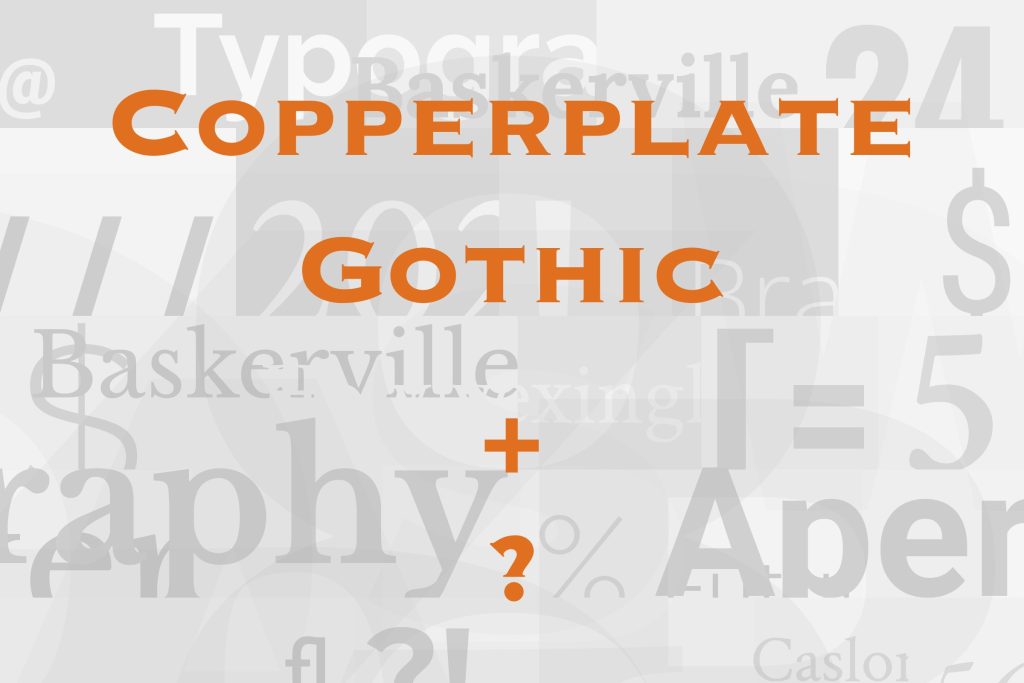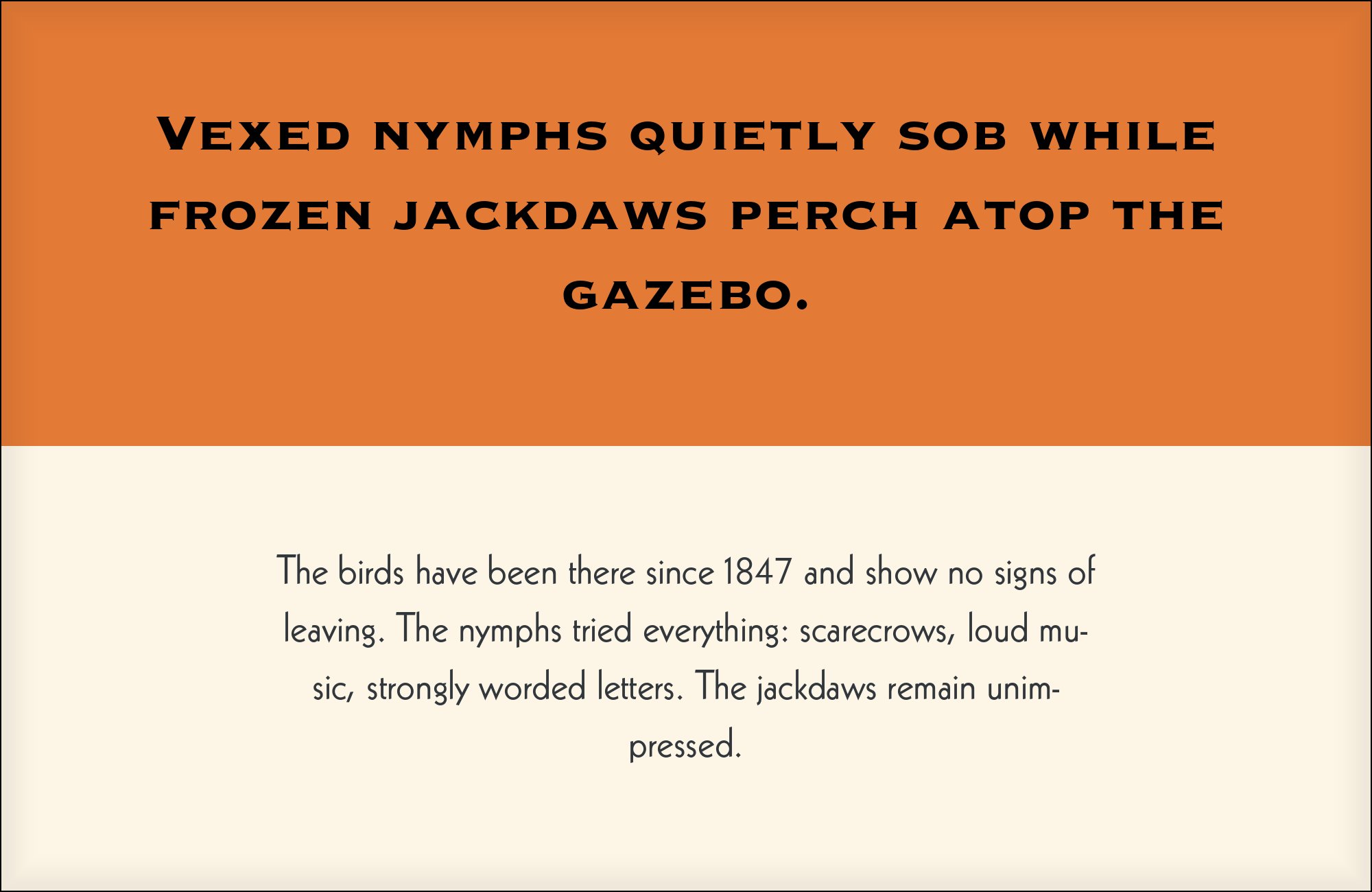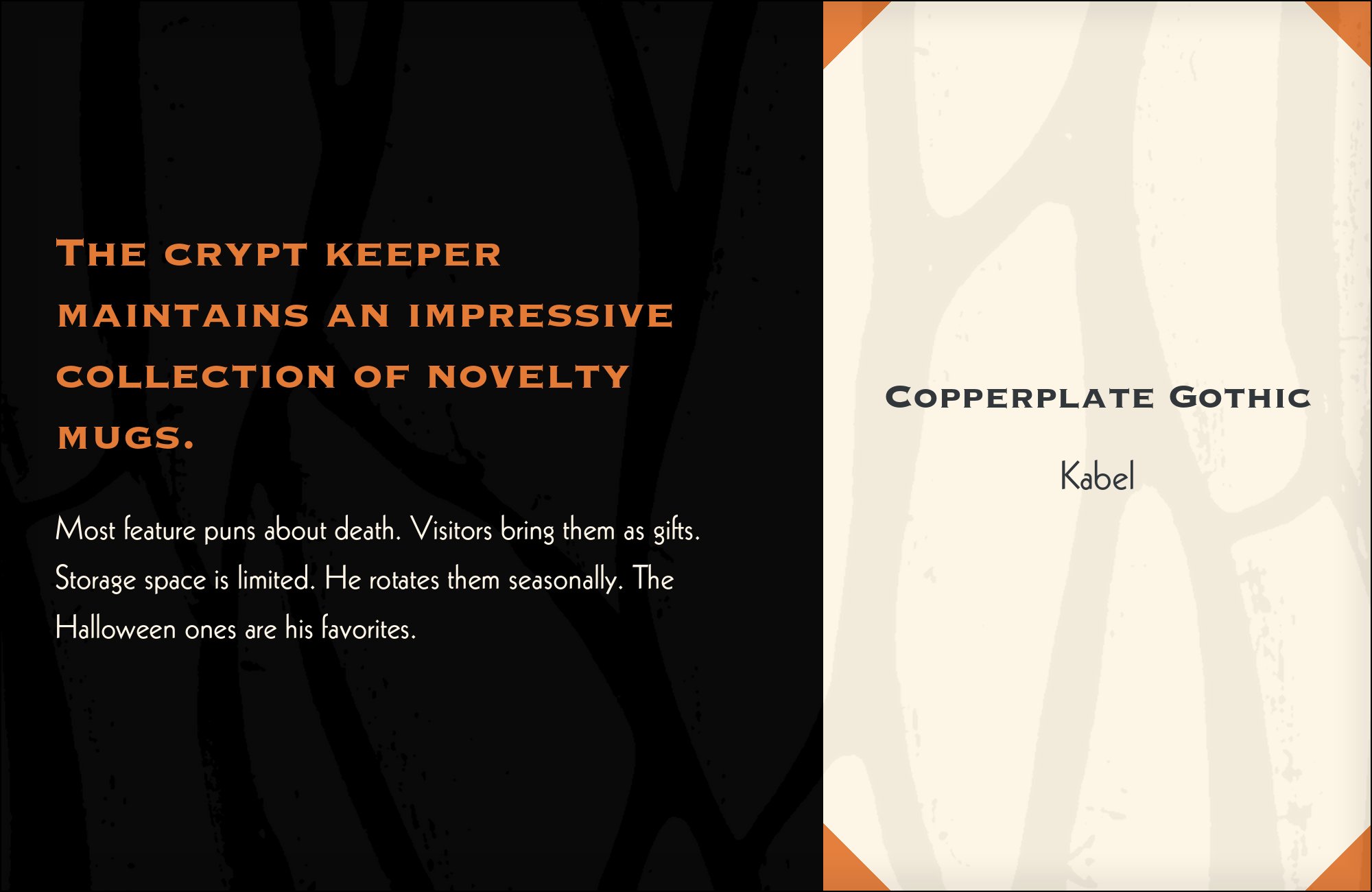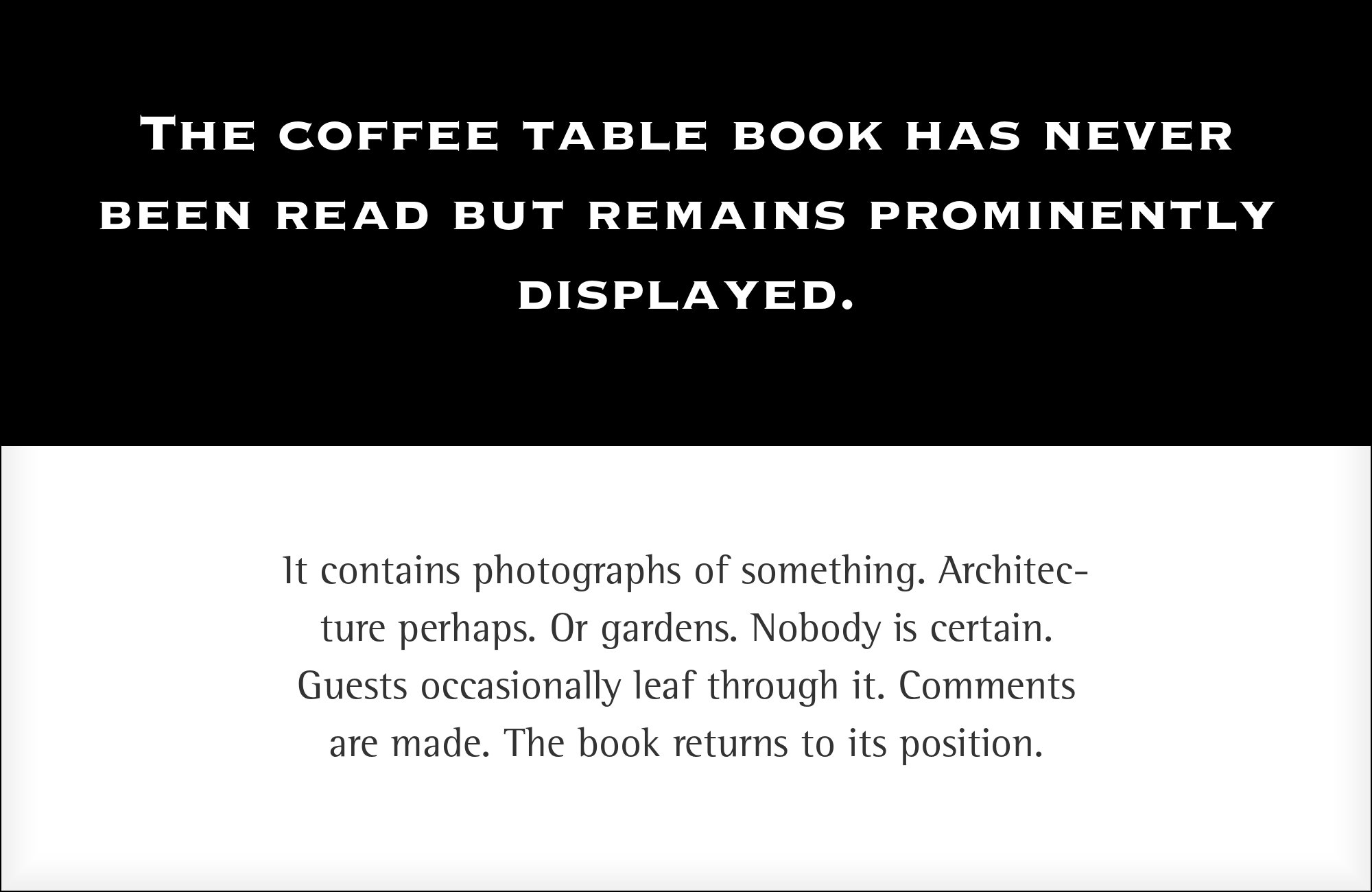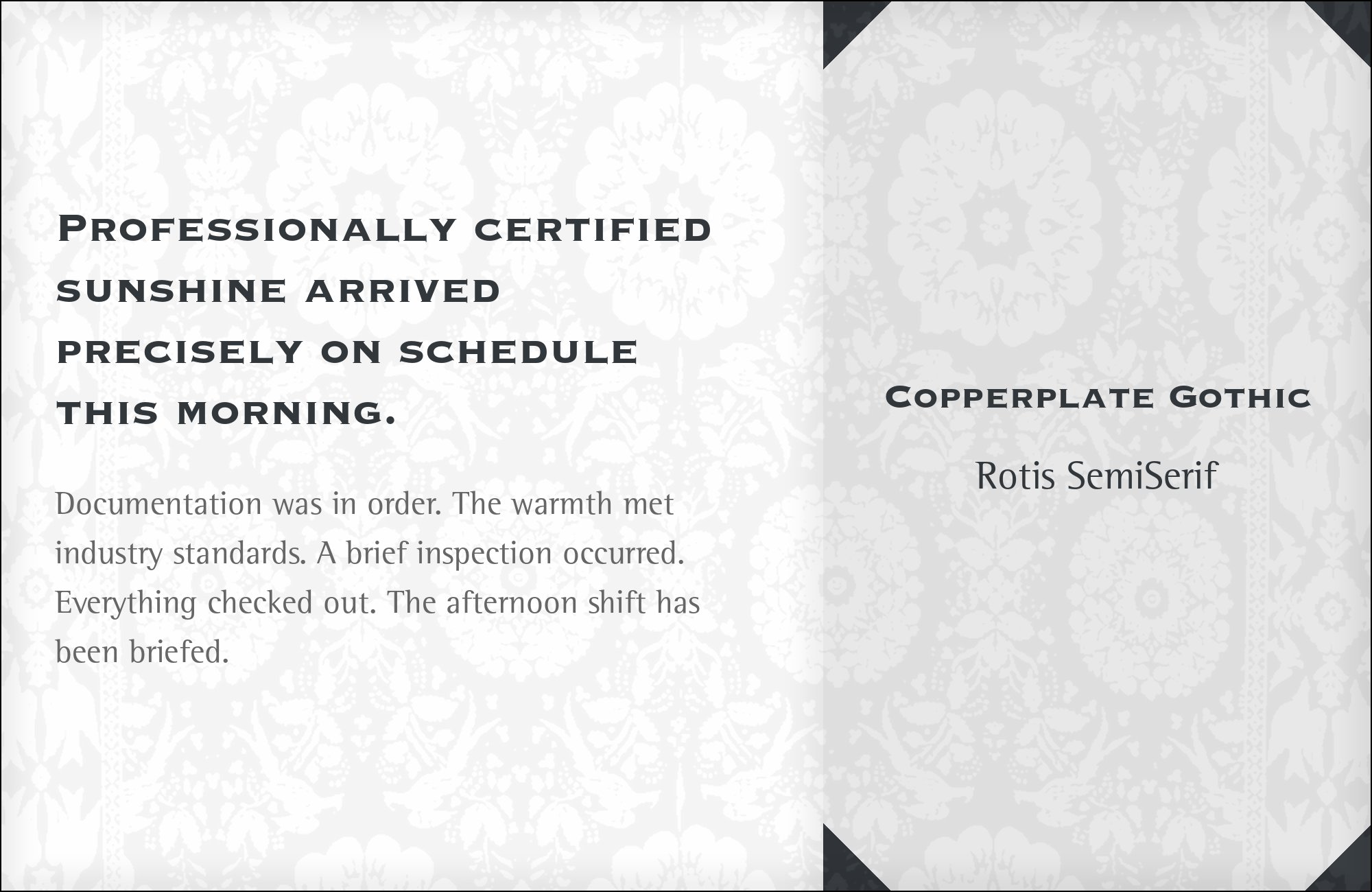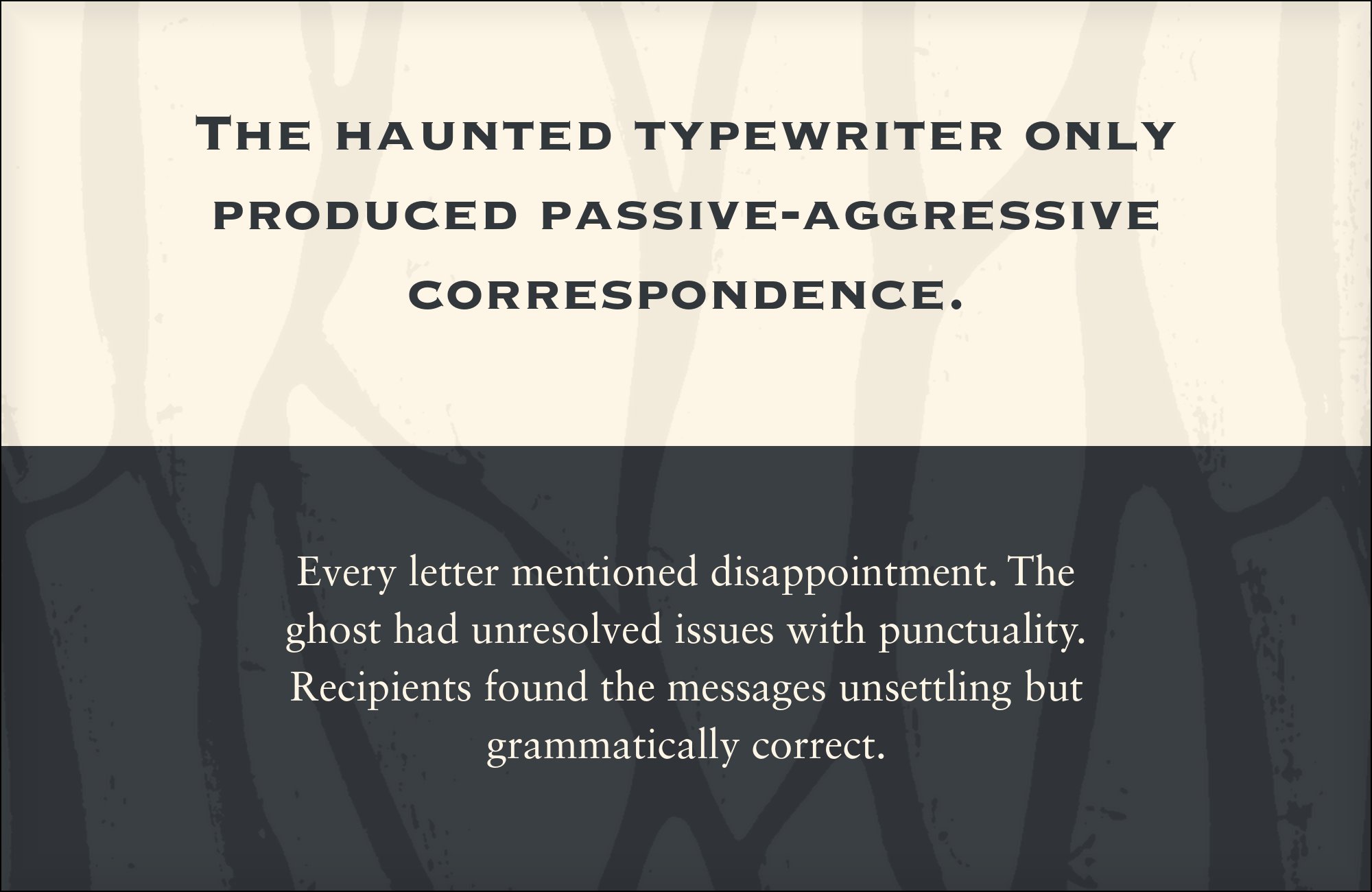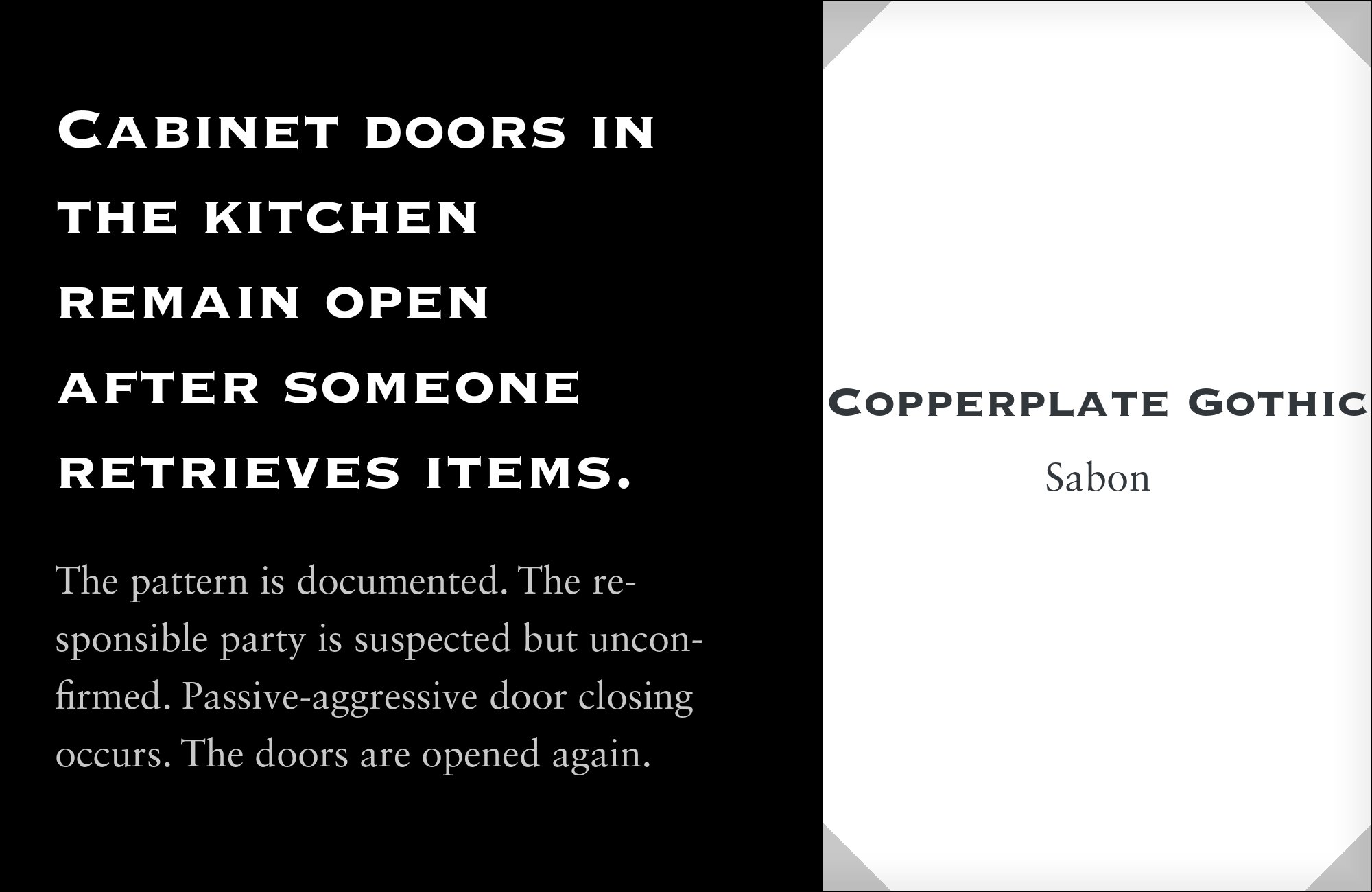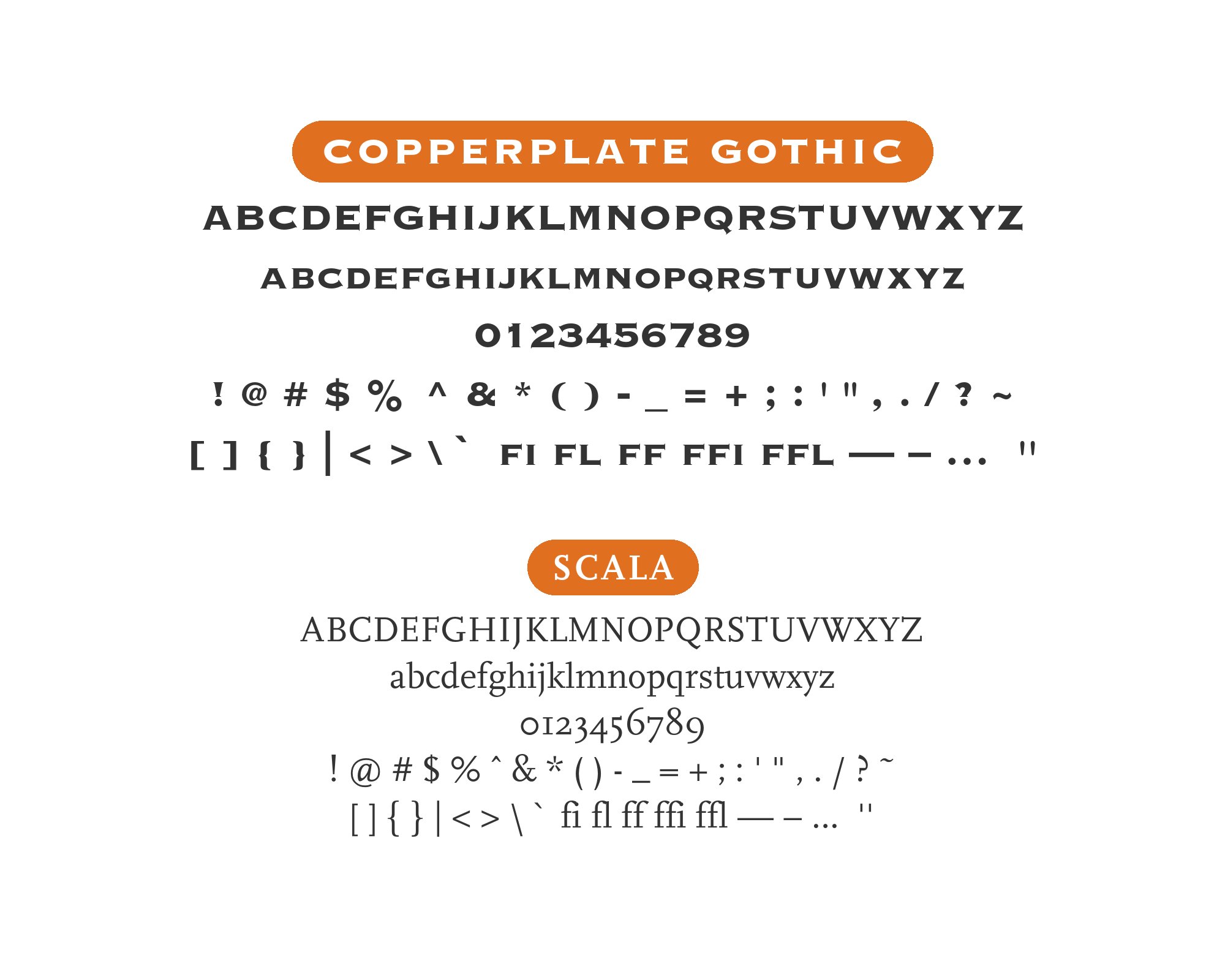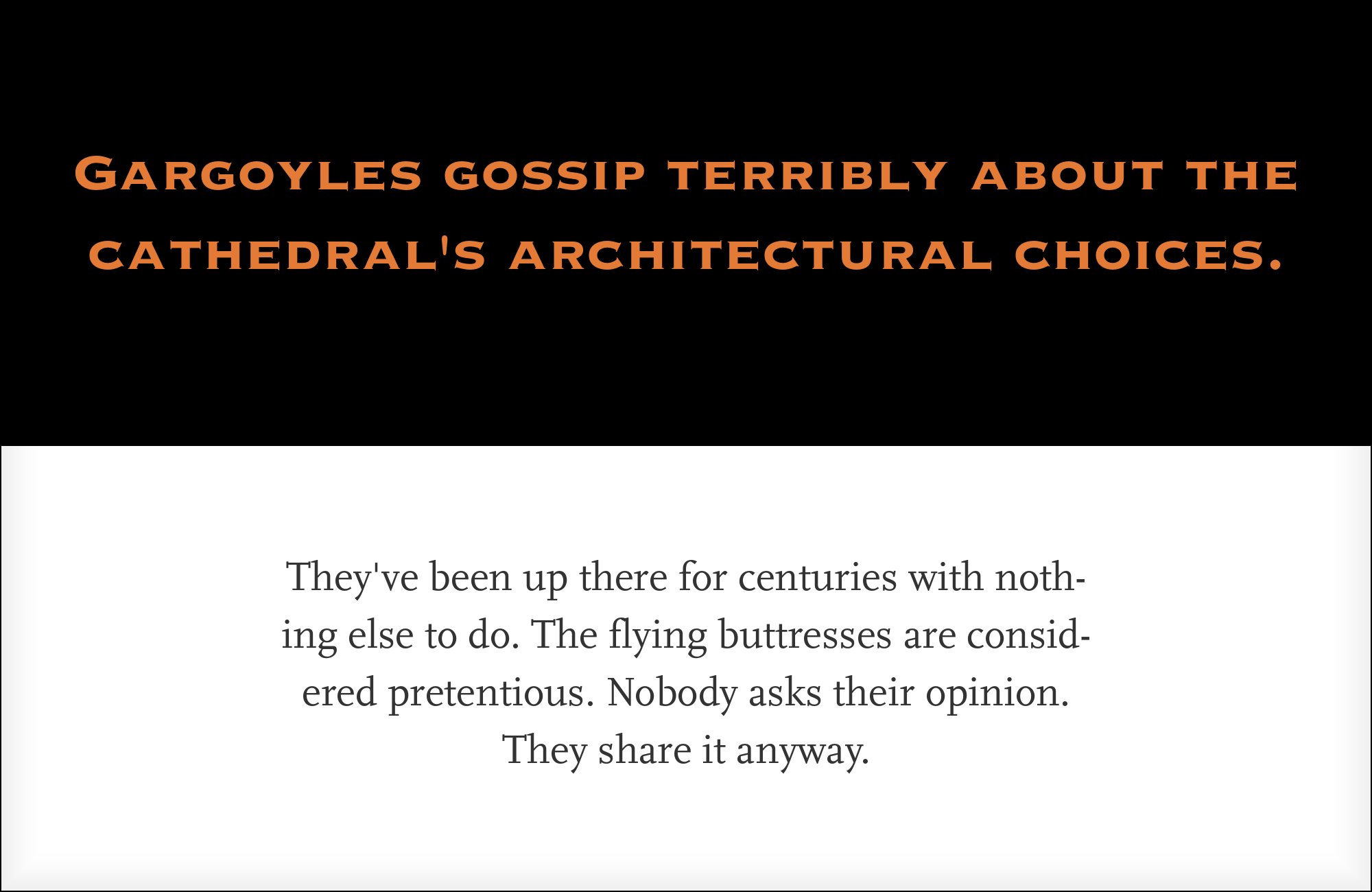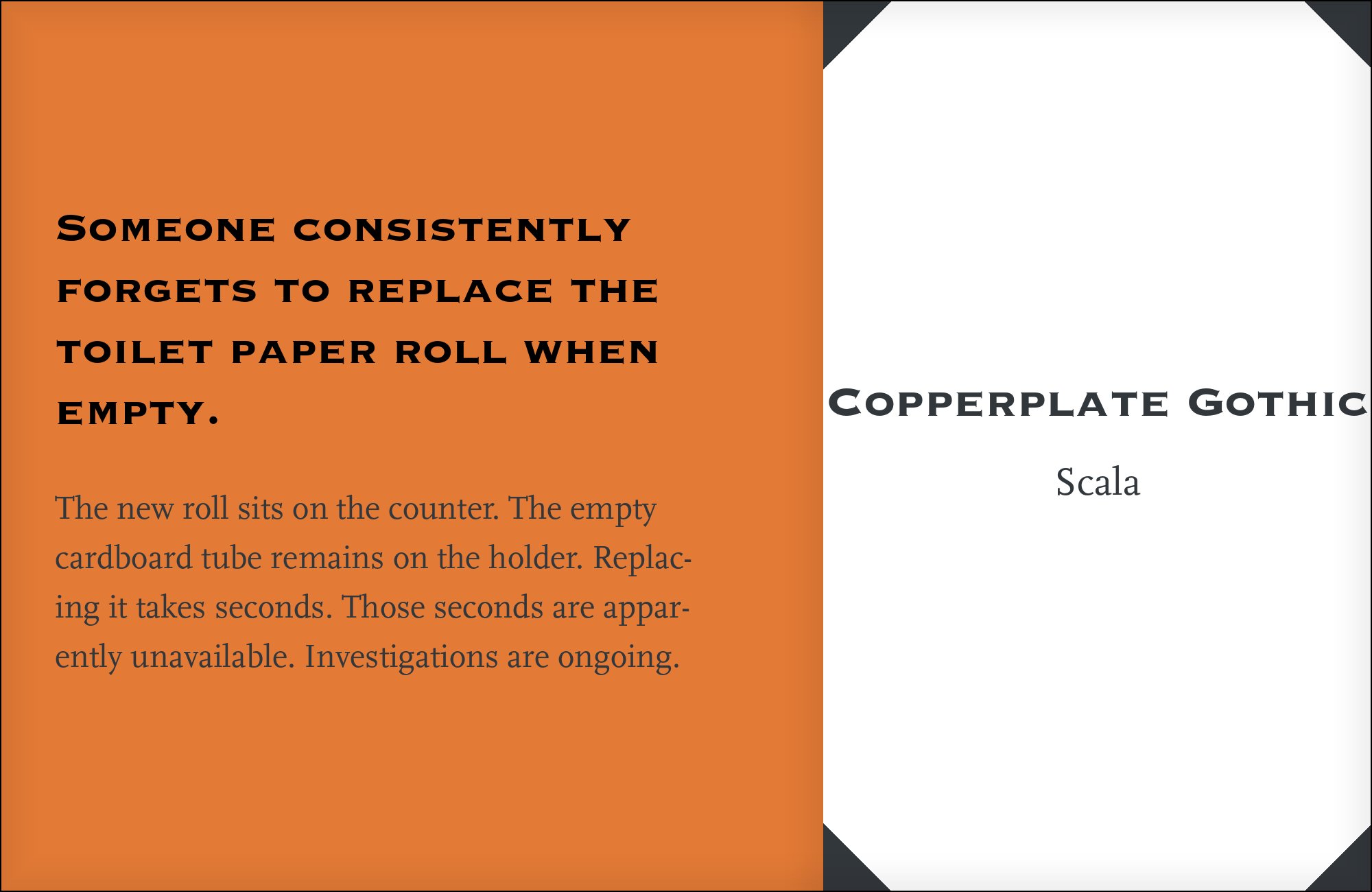
Copperplate Gothic pairs great with Scala, Univers and Sabon. All 5 pairings are shown below in real rendered specimens, with the reason each one works.
Almost nothing pairs with Copperplate Gothic, and that is by design. It is a 1901 all-caps engraving face with wedge-shaped microserifs so small they only register at business-card and letterhead sizes — drawn for a nameplate, not a paragraph. Below are the real-world combinations that have actually put it to work, and what to reach for if the project needs an entire typographic system rather than one small, precise label.
Why Copperplate Gothic resists pairing
Frederic W. Goudy drew Copperplate Gothic in 1901 for American Type Founders, and it looks like a sans serif at a glance while carrying tiny serifs visible only up close. The original cuts have no lowercase at all, and Goudy intended it for headings and key words, not body text, so it cannot headline a page the way Impact or Trajan can. It functions as a small-caps label — a logotype, a letterhead, a masthead — which means it never carries body copy. Every real pairing found for it is really a division of labor: Copperplate Gothic supplies the mark, and something else does all the reading.
1. Scala
In a typographic-hierarchy example by Ilene Strizver for CreativePro, Copperplate Gothic is set with Scala, Scala Sans and Home Run. It is a workable formula because Copperplate Gothic’s tiny serifs only read cleanly as a label or masthead face at small sizes, while Scala’s paired serif-and-sans family does the actual reading work at any size the layout requires. This is closer to a documented teaching example than a designed piece of branding, but it shows the mechanical logic clearly: one face names the section, the other explains it.
2. Univers
Fonts In Use documents Copperplate Gothic on They Might Be Giants’ 1990 album Flood, where Copperplate Gothic sets the band name and album title on the back cover and labels, Univers Black Extended sets the track listing, and Neuzeit-Grotesk is the closest match for the contoured title caps. This is real-project evidence rather than a curated suggestion, and it holds up for the same reason the Scala pairing does: label duty stays separate from reading duty. It is not a pairing a designer would necessarily choose for a new brief, but it is proof the formula works in the wild.
3. Sabon
Fonts In Use records that American Psycho used Copperplate Gothic for its opening titles and for the business card of Bateman’s colleague Paul Allen, because the face stood for money, luxury and power in the late 1980s; Sabon and Shelley Script appear in the same film. Together they read as understated, old-fashioned prestige rather than the loud logotype work Copperplate Gothic more often does. It is a three-face system, not a clean two-font pairing, and it barely counts as a template anyone could reuse — but it is honest evidence of the register the face signals.
4. Kabel
On the 1985 Parker Brothers Monopoly board, Copperplate Gothic’s small-caps precision sits alongside two geometric sans faces, Kabel and Futura. Kabel and Futura, both released in 1927, are geometric sans faces, and Copperplate Gothic is older still, so the set reads as early-twentieth-century rather than modern. This works because the pairing logic here is historical rather than structural — it is not that these faces flatter Copperplate Gothic’s forms, but that all three belong to the same design period, which is a narrower and more fragile justification than the others on this list.
5. Rotis SemiSerif
For the television series Tru Calling, the promotional logo used Copperplate Gothic, while a second logo and the opening credits used Rotis SemiSerif, a humanist semi-serif that balances Copperplate Gothic’s rigid, geometric small caps with something warmer and more legible at a range of sizes. Like the other entries here, this is documented use rather than a general recommendation, and it barely generalizes beyond titling work — but it confirms the same pattern: something legible and warm has to do the job Copperplate Gothic cannot.
What to use instead
Every documented use of Copperplate Gothic treats it as a small, fixed-size label beside a completely separate text family. If a project needs that formal, engraved register built into one system instead — a wordmark and body copy that share a family and include real small caps as an OpenType feature — Adobe Garamond Pro is the closer fit, with OpenType features and three weights with italics. That gives the same restrained, old-money tone without needing to import a second and third face just to set a paragraph.
Copperplate Gothic is not a headline face and never has been; it is a mark, sized for a business card or a masthead, that hands every other job to whatever sits beside it. Four of the five combinations above come from real album art, film, television and a board game; the fifth is a teaching example. Each one keeps the same discipline: label small, read elsewhere. That division of labor is the only rule this face has ever needed.